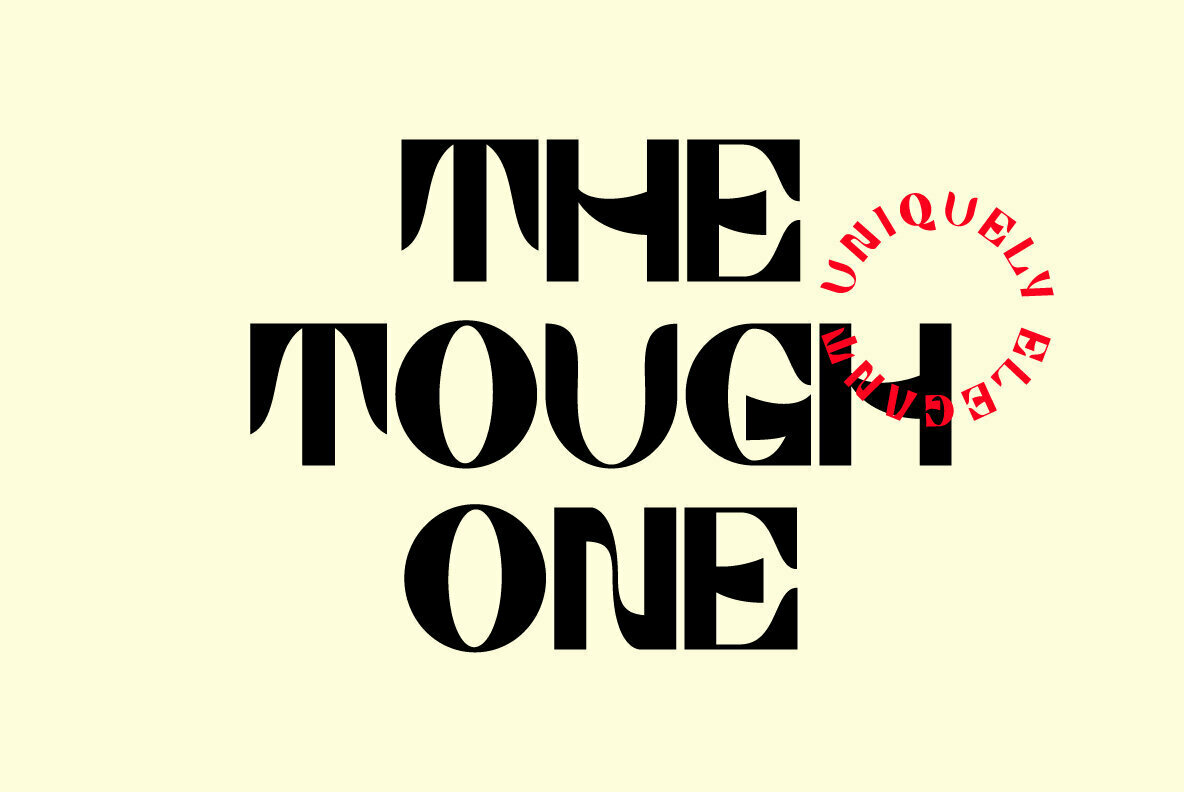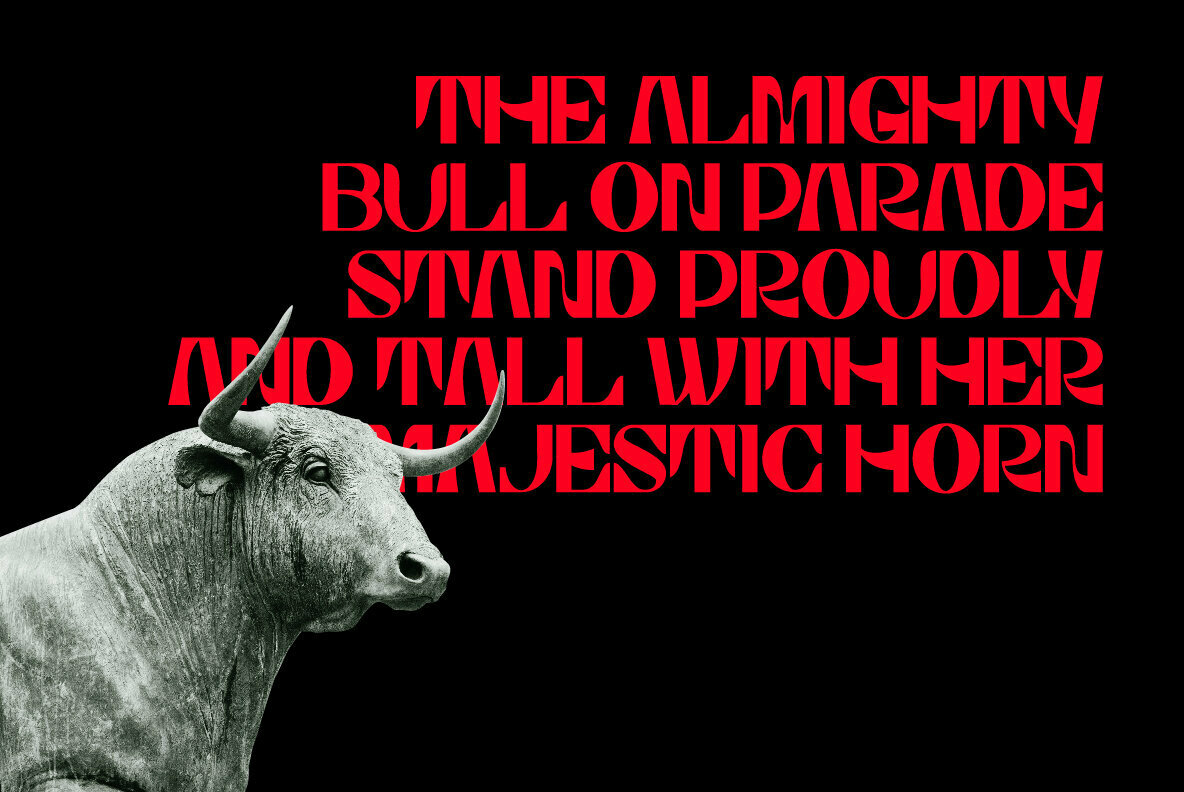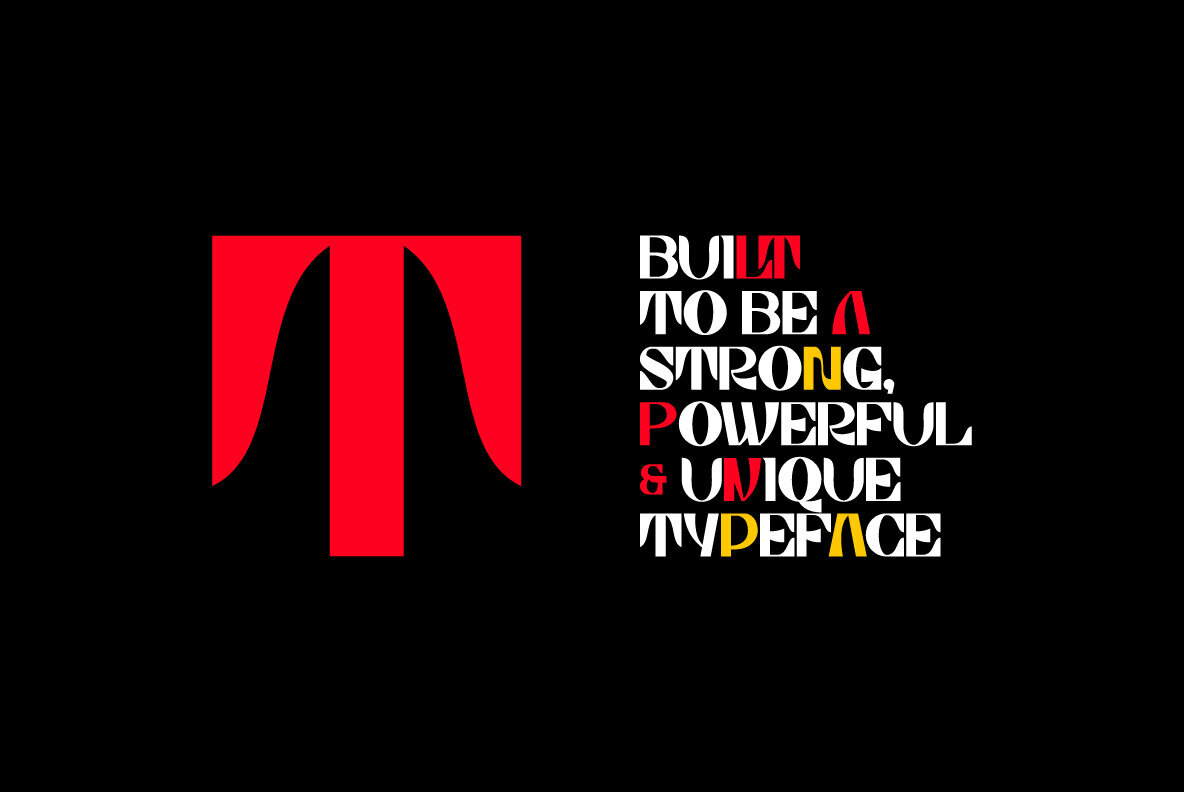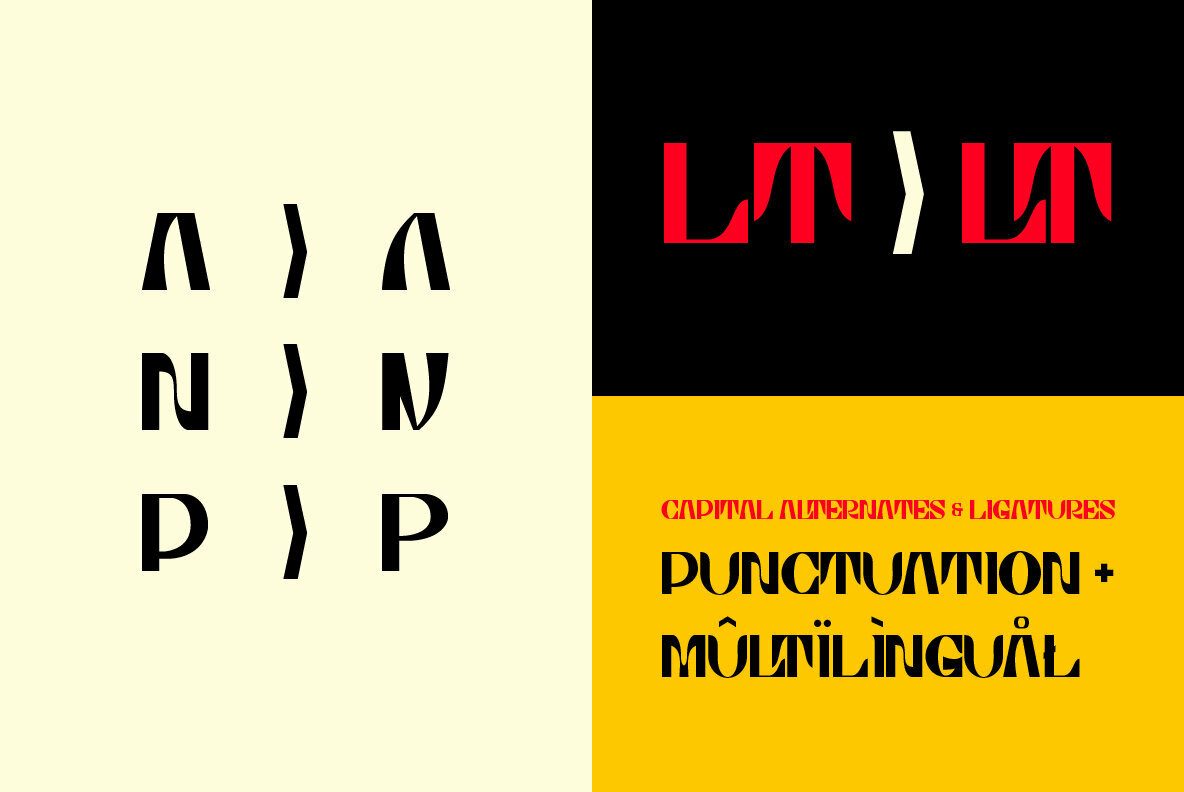
MBF Taurian
MBF Taurian is a striking display typeface that embodies strength and sophistication. Drawing inspiration from the powerful horn of the bull, this font instills a sense of pride and bold elegance into any design project. Each glyph is crafted with exceptional attention to detail, ensuring a polished and impactful presentation. Embrace the commanding presence of MBF Taurian to elevate your creative endeavors.MBF Taurian: Bold Elegance Inspired by Nature